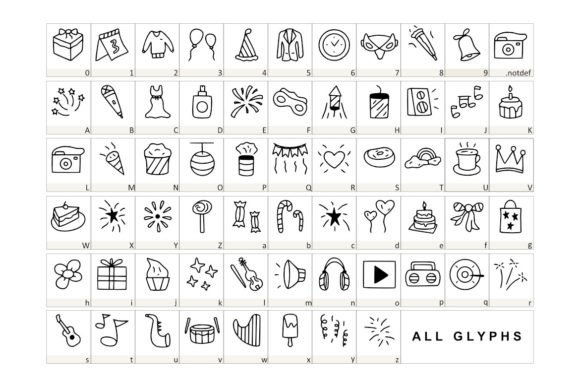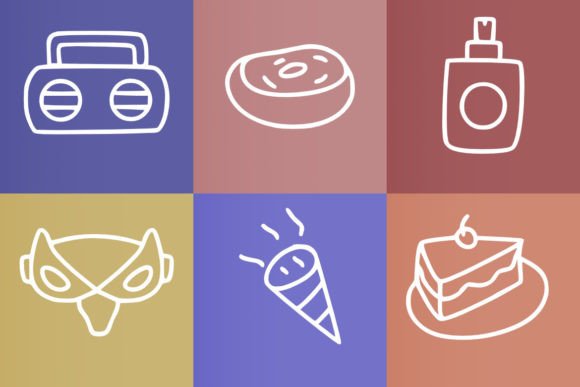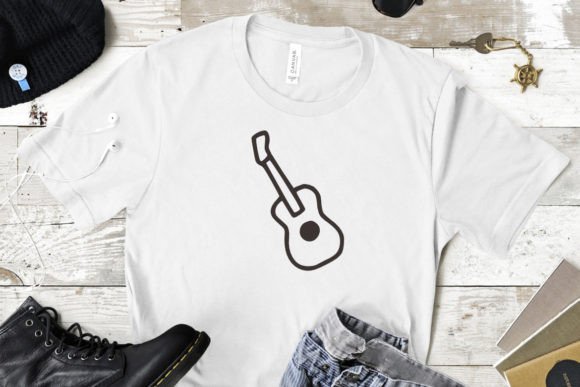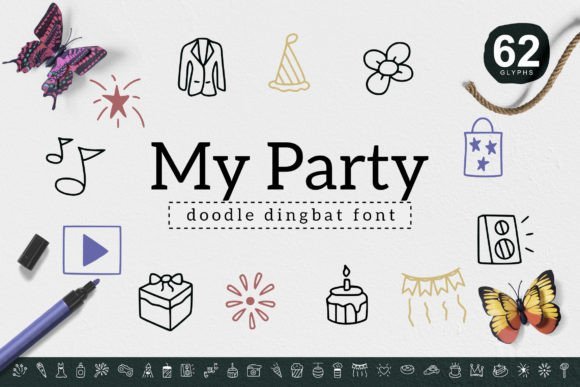
Introduction to My Party Font
My Party is a cute and useful dingbats font perfect for a wide variety of projects.
Use it for stickers, posters, t-shirts, cards, apparel graphics, etc , and you will love the results.
My Party Font offers exceptional quality and versatility, making it a valuable addition to your design toolkit. Whether you’re creating for personal projects or commercial use, My Party Font delivers professional results.